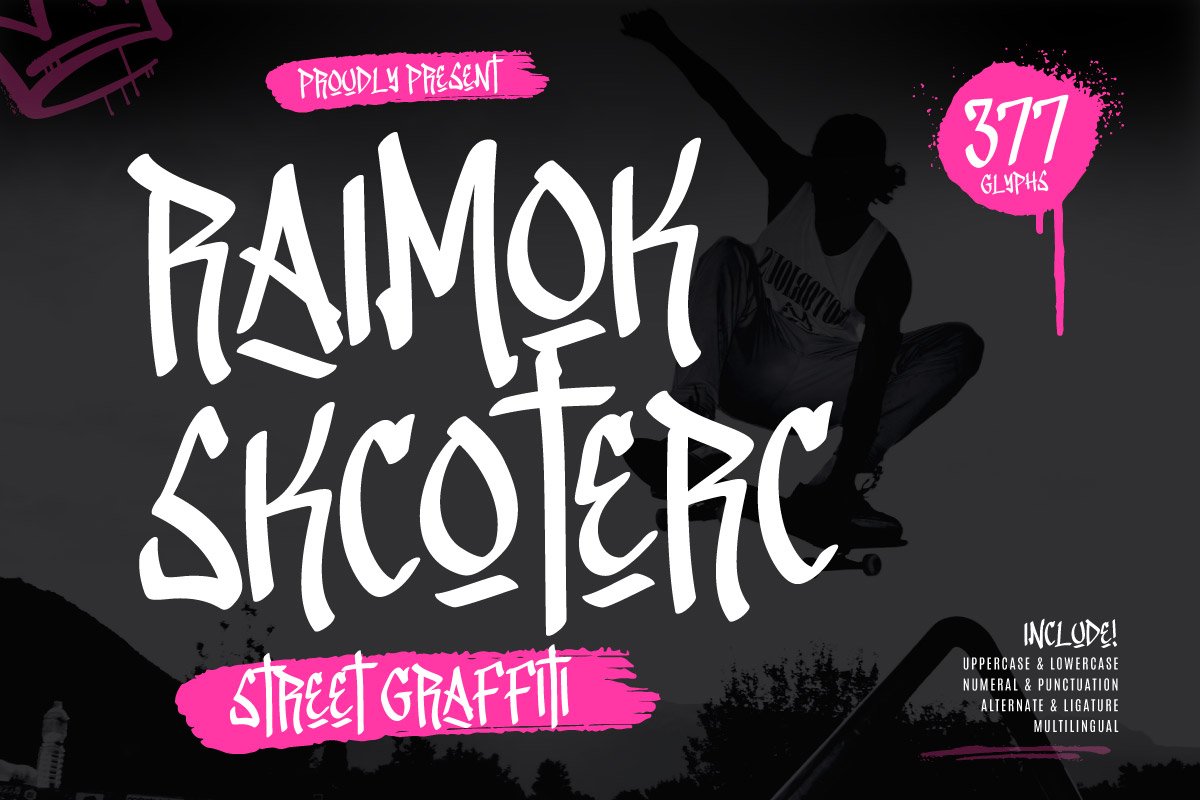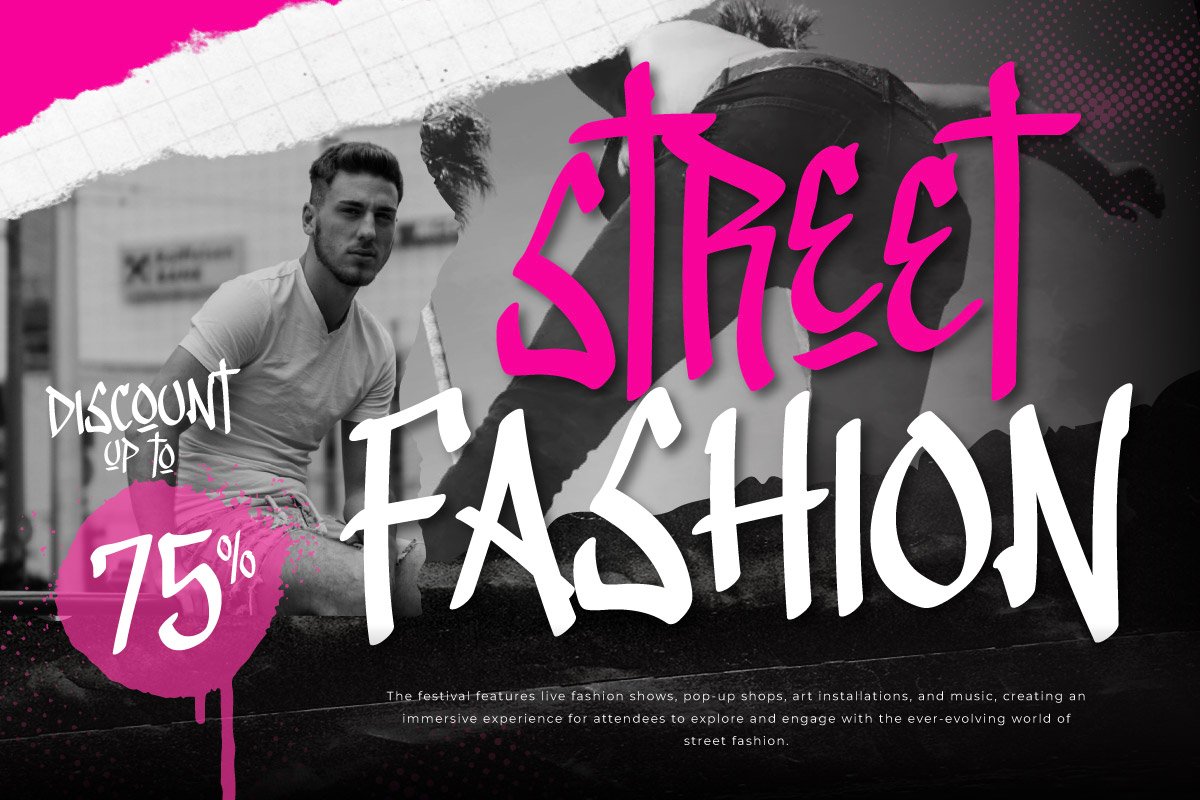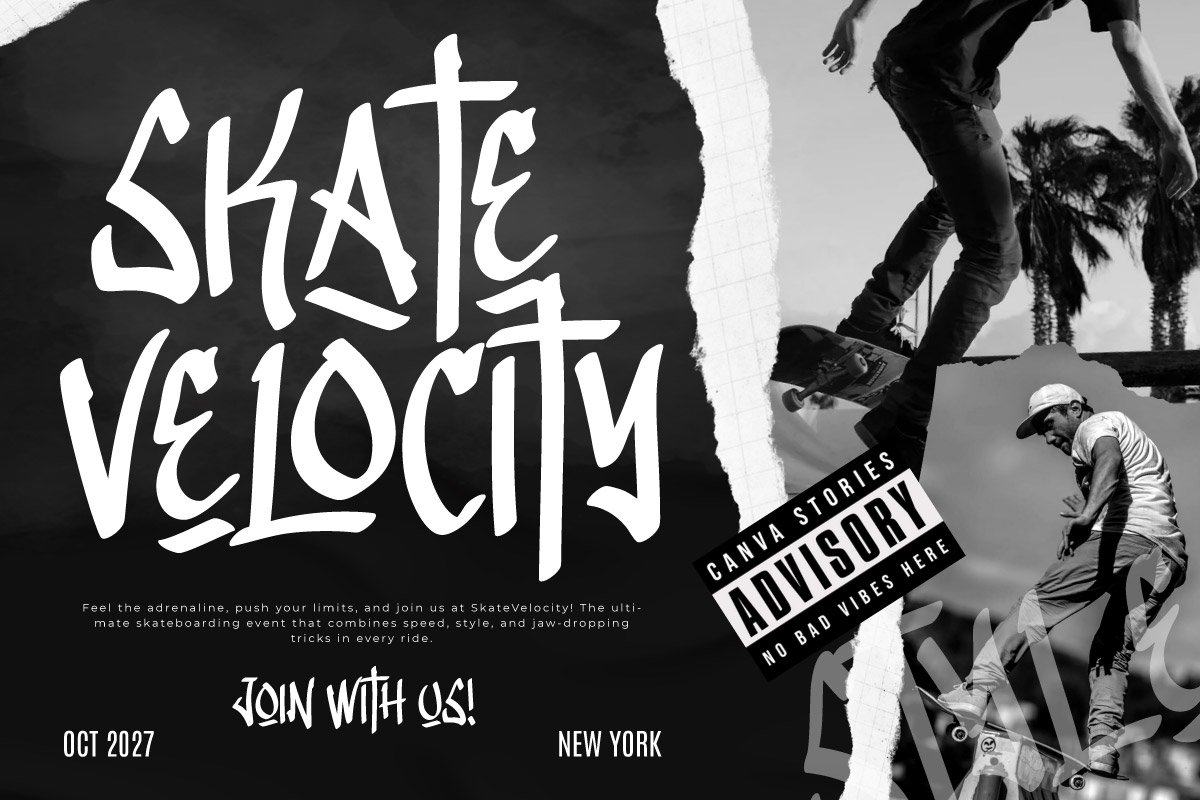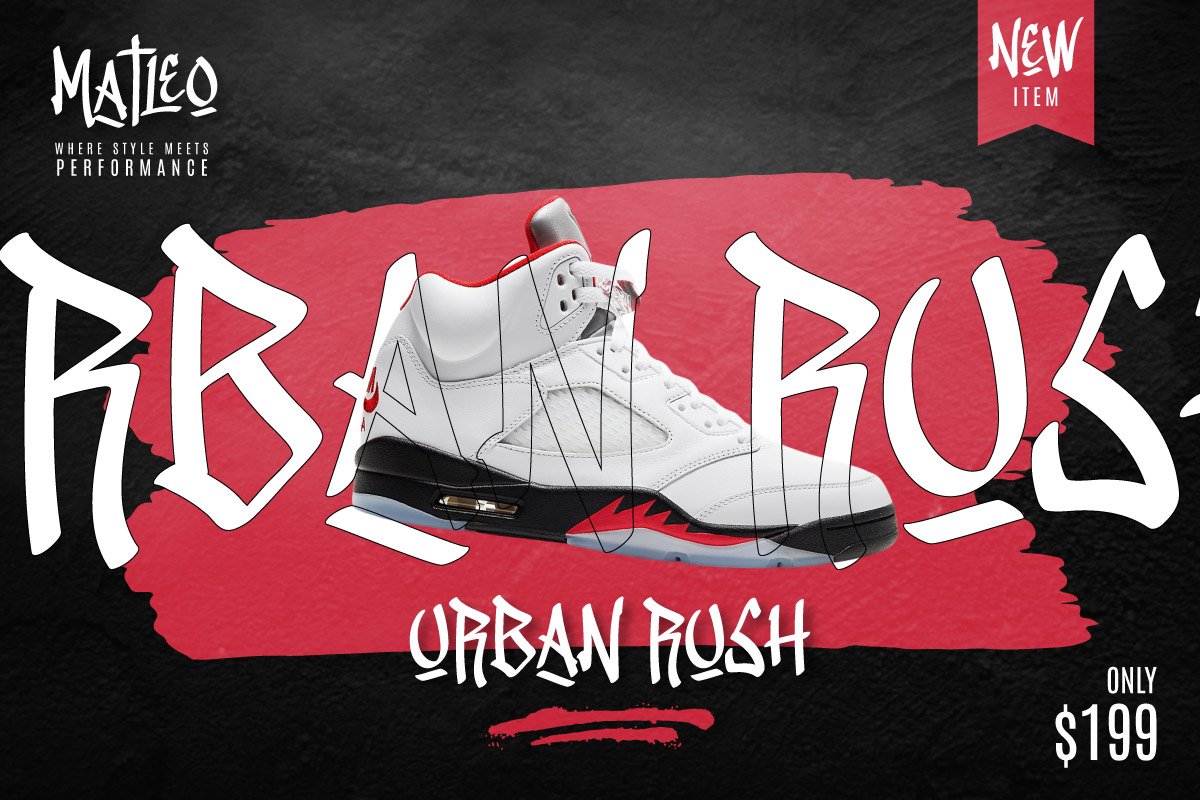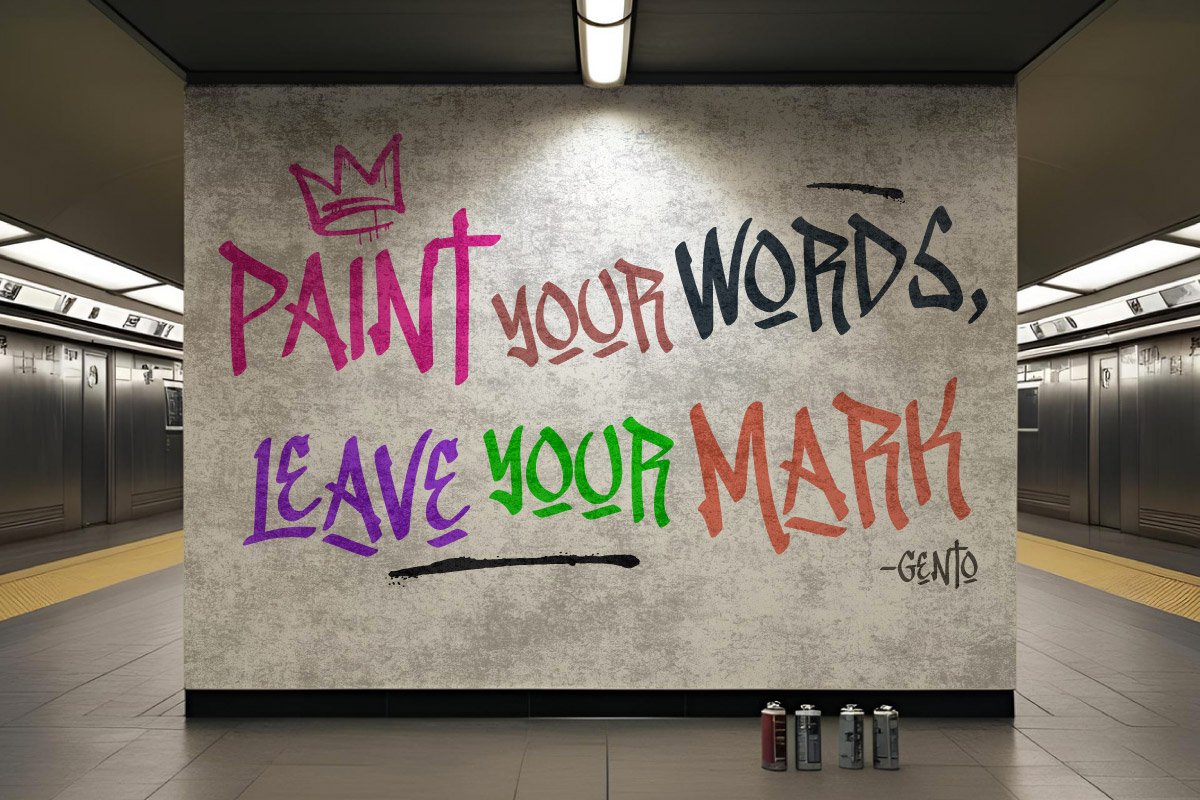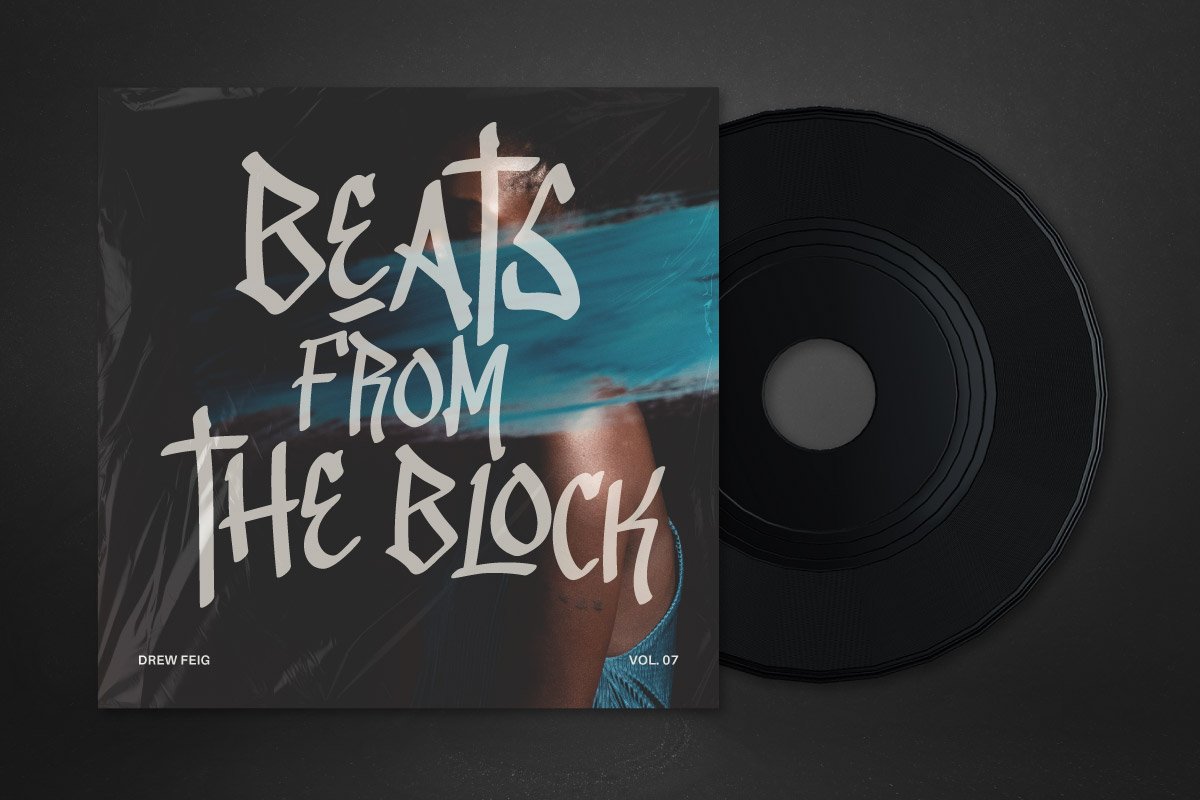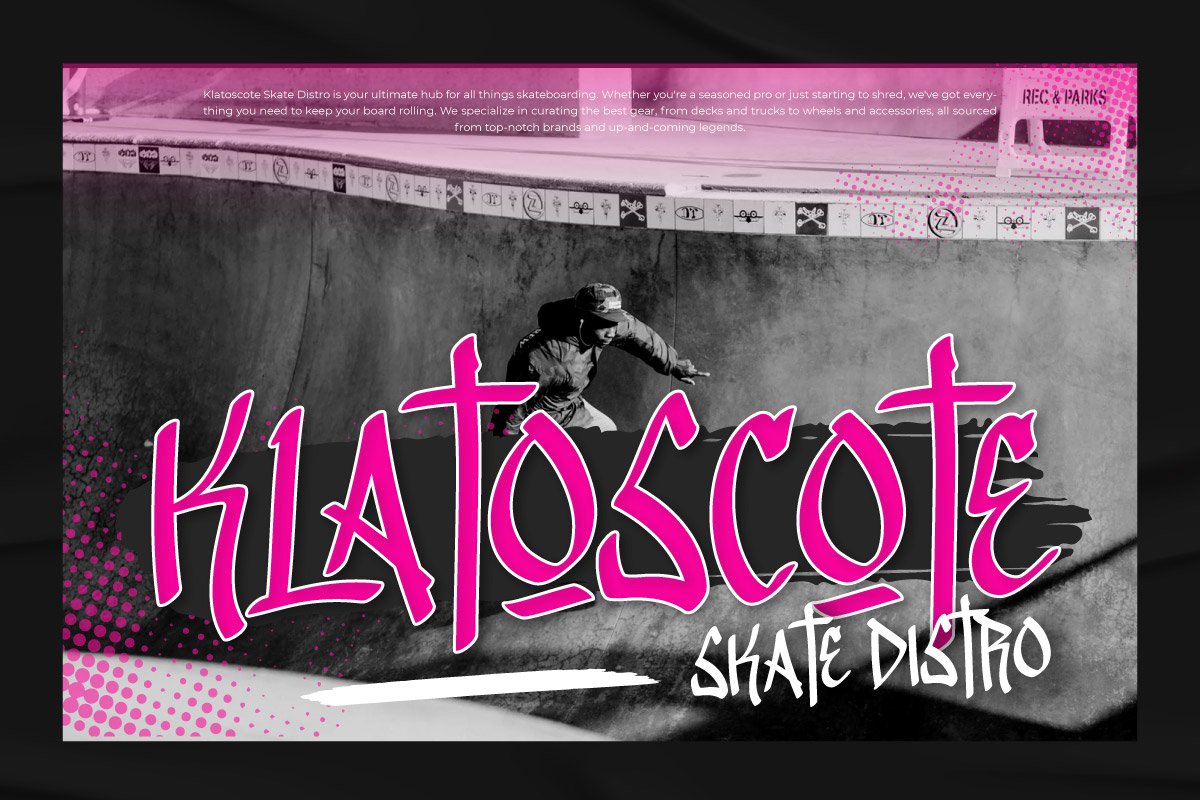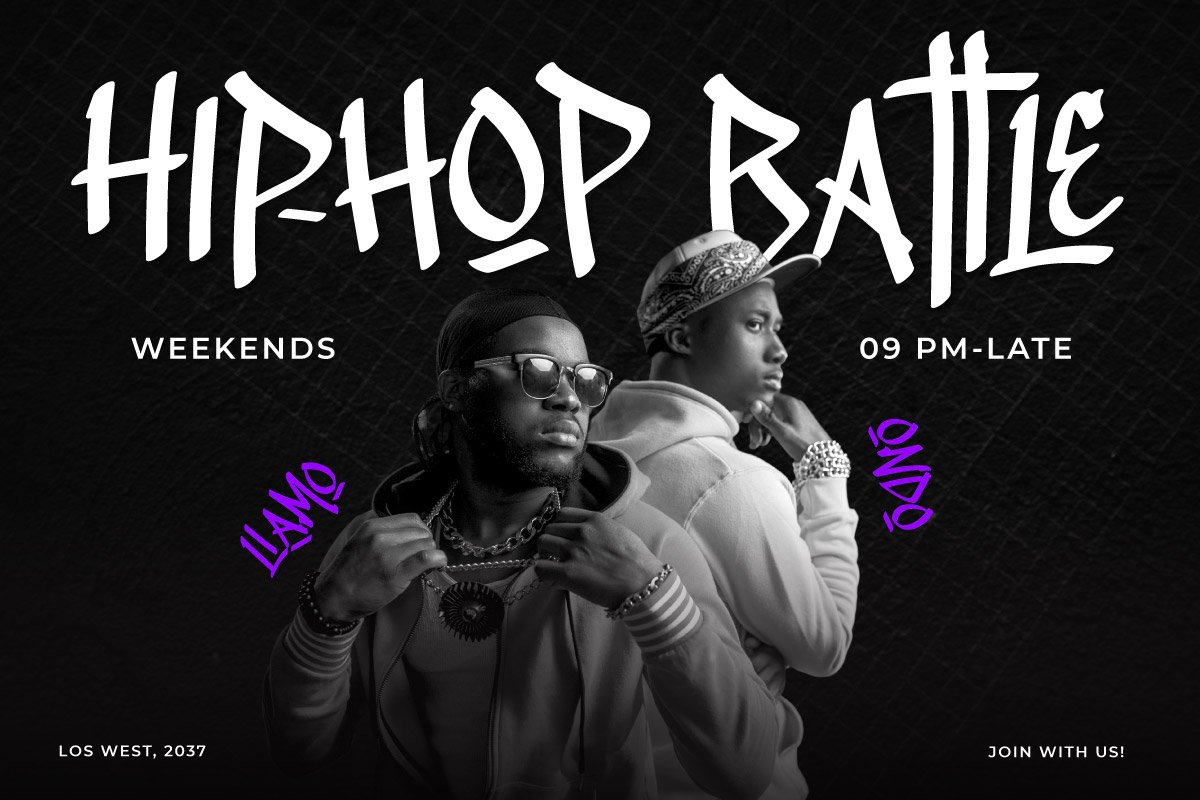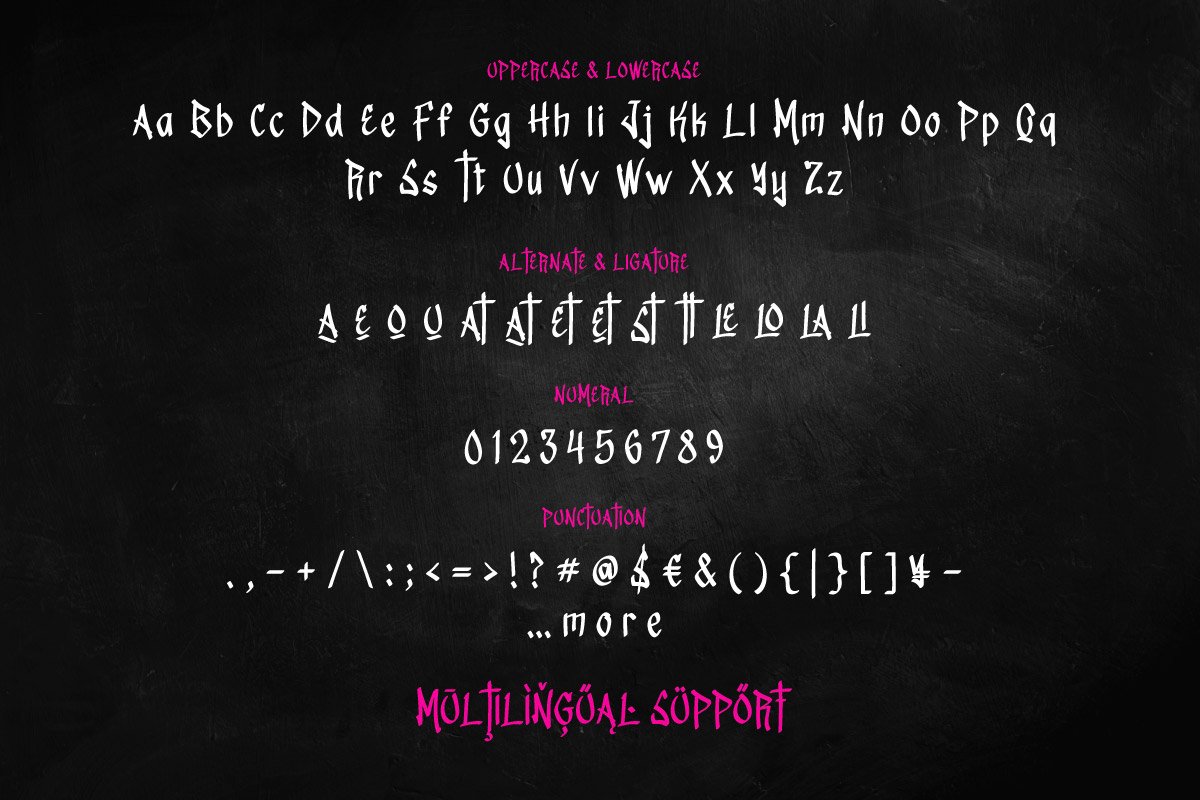
Raimok Skcoterc – Street Graffiti Font
Raimok Skcoterc is a bold and rebellious street graffiti font that captures the raw energy of urban expression. Designed with sharp lines, edgy curves, and dynamic strokes, this font embodies the spirit of street art—unfiltered, powerful, and full of personality. Perfect for designers who want to inject a dose of attitude and authenticity into their work, Raimok Skcoterc works beautifully in posters, album covers, skate culture branding, streetwear designs, and more.
This font offers a strong visual punch while remaining legible, making it ideal for both digital and print projects. Whether you’re creating promotional materials for an underground event, designing a gritty logo, or adding street vibes to a social media post, Raimok Skcoterc delivers impact with style. Let your creativity run wild and paint your message loud with this expressive graffiti typeface.